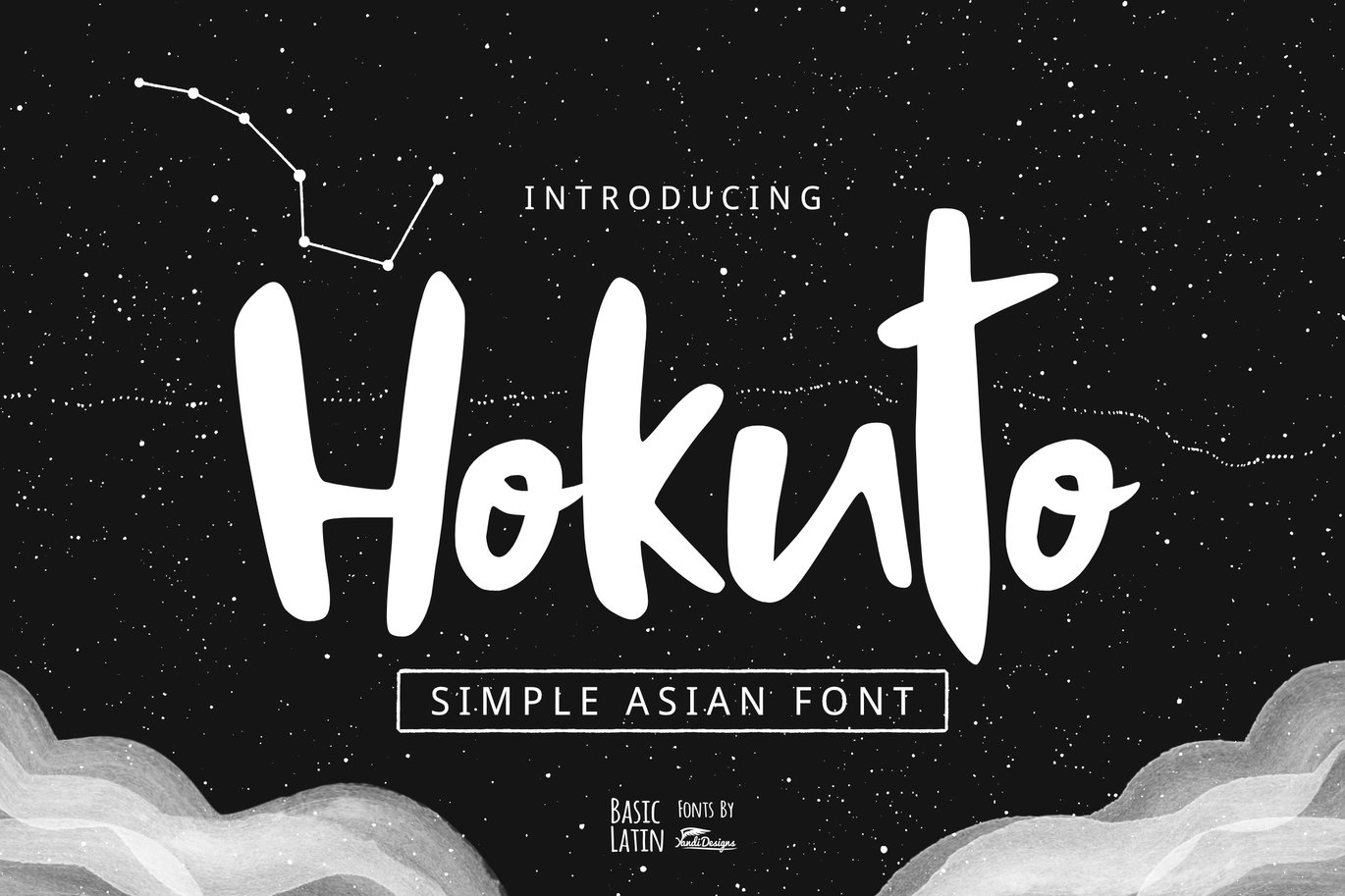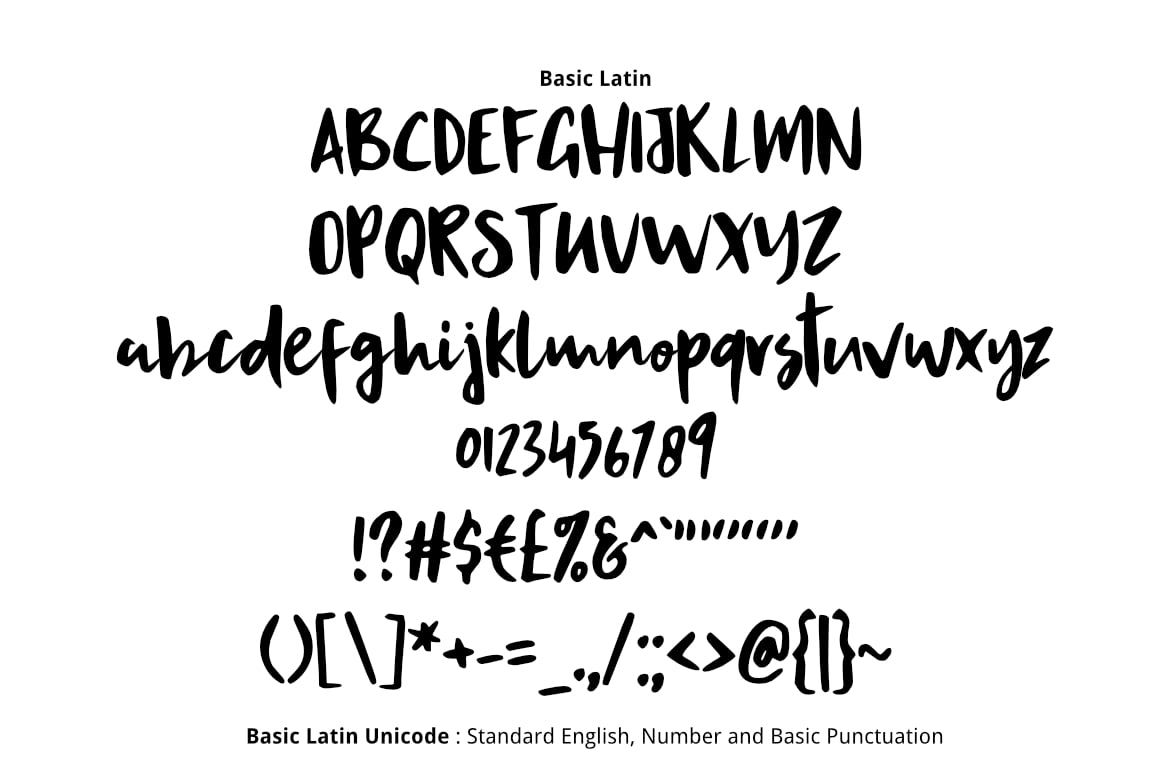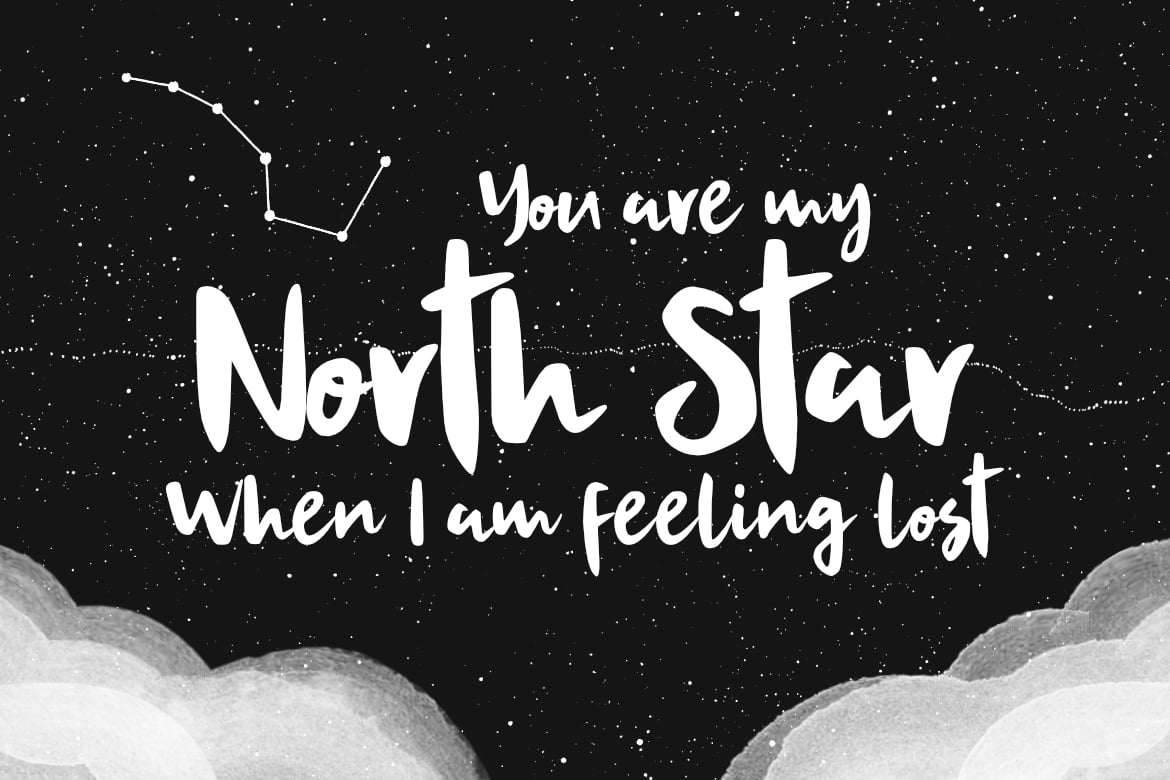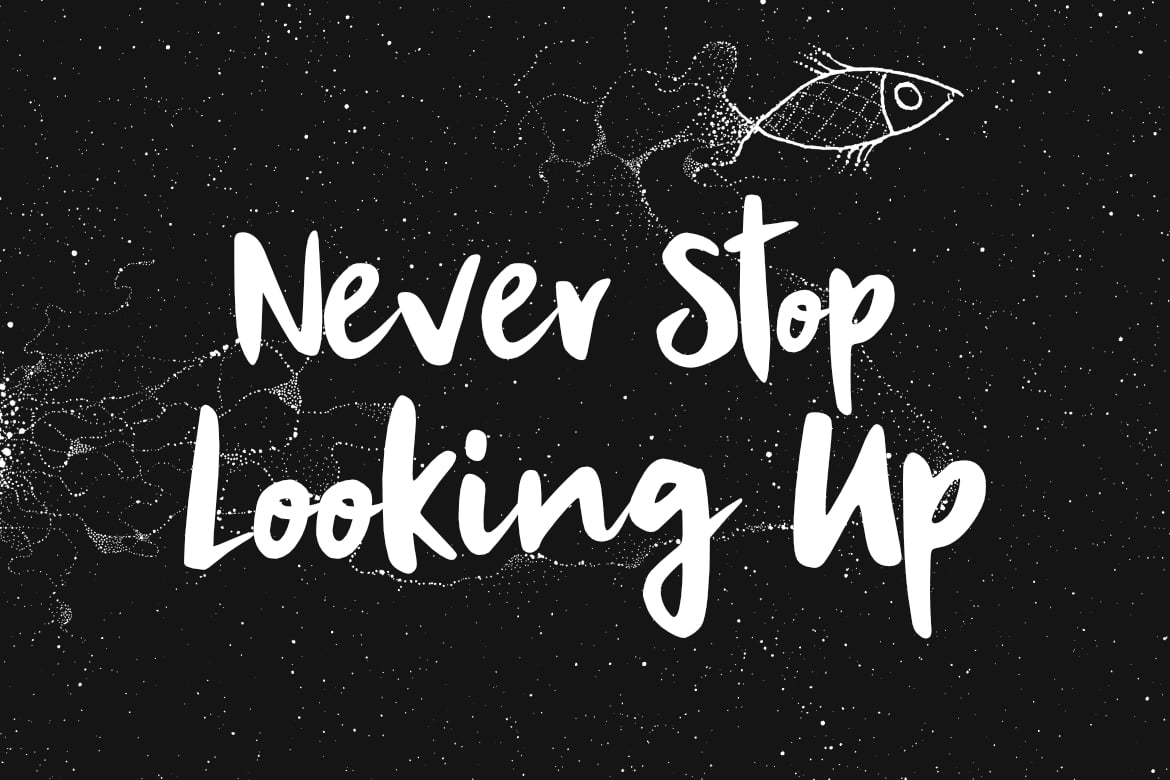
Hokuto Asian Font
Hokuto “The North Star” is lovely , cute, simple, artistic Asian Japanese multipurpose font , suitable for many project children book, quotes, logo , heading , title etc.
Basic Latin (Standard English character , number, symbol)